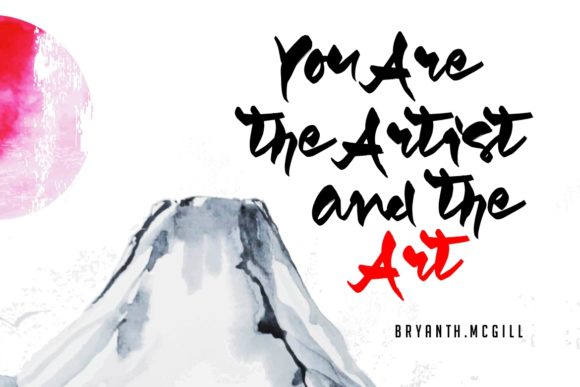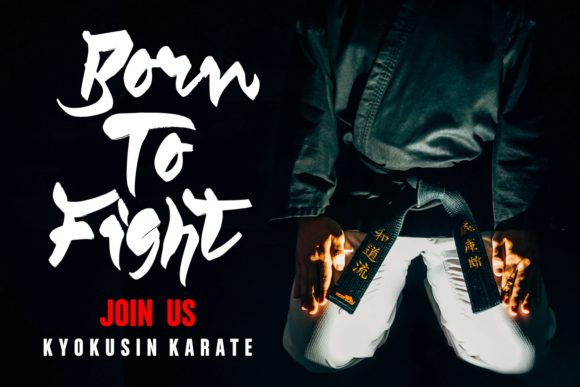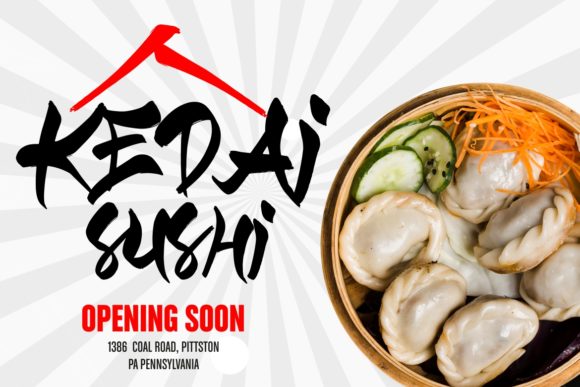
Introduction to Santoriu Font
Have you ever stared at a blank page, struggling to bring your creative vision to life? For designers, this moment can be daunting, but what if the right tool could change everything? Enter Santoriu Font, a game-changing design resource that’s been making waves in the industry.
Santoriu Font feels both authentic and fresh, with a unique character that elevates any design project to the next level. Whether you’re working on a high-quality brochure, a creative campaign, or a website, this versatile font is sure to impress. And the best part? It’s available for free download, making it a valuable addition to any designer’s toolkit.
With its transparent background and sleek design, Santoriu Font is the perfect solution for designers seeking a high-quality, professional look. In this article, we’ll dive deeper into the world of Santoriu Font and explore what makes it such a valuable resource for creatives everywhere.
Key Features of Santoriu Font
- High-quality design resource suitable for creative projects, offering a unique and elegant touch.
- Comes with a transparent background, allowing for seamless integration with various design elements.
- Features a clean and modern design, perfect for use in logos, branding, and other visual identity projects.
Honest Review: Santoriu Font
I recently stumbled upon the Santoriu Font and was excited to give it a try for my next creative project. I must say, I was pleasantly surprised by its quality.
- ✨ Unique design: The font has a distinctive, modern style that adds a touch of elegance to any design.
However, I did encounter some limitations while using the font.
- ⚠️ Limited font styles: The Santoriu Font only comes in a few font styles, which might not be suitable for more complex design projects.
- ⚠️ No bold or italic options: Unfortunately, the font doesn’t have bold or italic options, which can be a drawback for designers who need more flexibility.
Overall, I think the Santoriu Font is a great design resource for those who want a unique and high-quality font for their creative project. While it has some limitations, I believe it’s still worth downloading for free.
The Santoriu Font is perfect for a variety of design projects, including business cards, brochures, and social media graphics. Its high-quality design makes it an ideal choice for creative professionals and hobbyists alike.
Yes, Santoriu Font is a high-quality design resource that can be used for a wide range of creative projects, including logo design. Its unique and elegant design makes it an ideal choice for any project that requires a touch of sophistication.